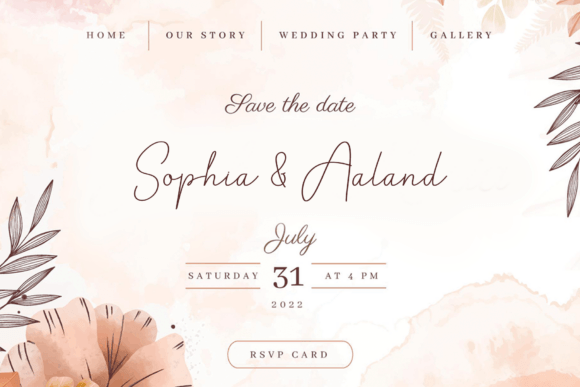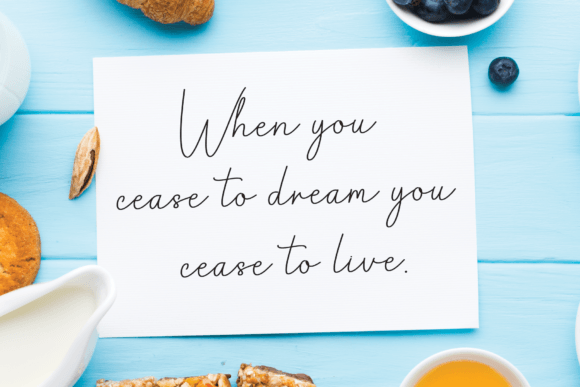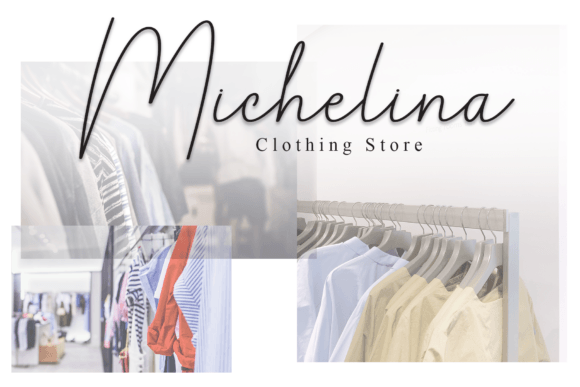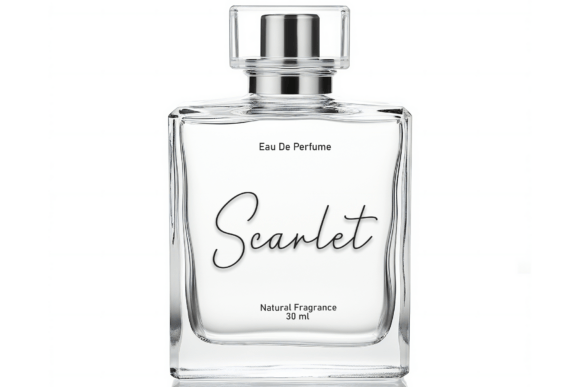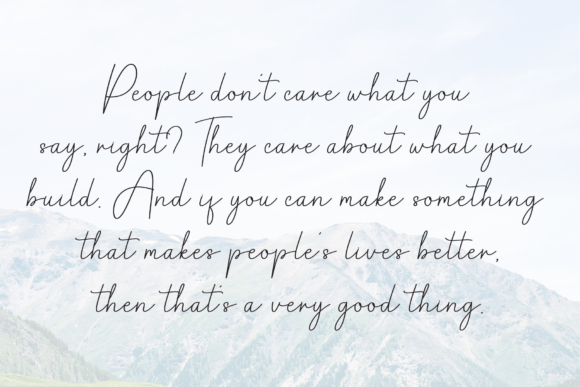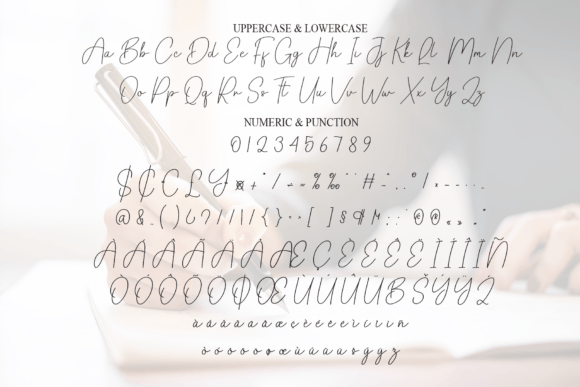
Bastian Signature Font: Elevate Your Designs with Elegant Handwriting
In the world of design, typography plays a crucial role in conveying the tone and personality of a brand or project. When it comes to adding a personal touch to your designs, a stylish handwritten font can make all the difference. Introducing Bastian Signature, a beautiful and elegant font that mimics natural, flowing handwriting. In this article, we’ll explore the features and benefits of Bastian Signature, and how it can elevate your designs to the next level.
What is Bastian Signature Font?
Bastian Signature is a stylish handwritten font that looks like natural, flowing handwriting. Its elegant and smooth letters make it perfect for adding a personal and creative touch to your designs. This font is designed to mimic the fluidity and uniqueness of handwritten text, making it ideal for a wide range of applications, from branding and advertising to crafting and scrapbooking.
Key Features of Bastian Signature Font
• Elegant and Smooth Letters: Bastian Signature features beautifully crafted letters that are smooth, flowing, and elegant. Each letter is designed to connect seamlessly with the next, creating a natural and fluid look.
• Natural Handwriting Style: This font is designed to mimic the imperfections and uniqueness of natural handwriting. The letters have a subtle variation in size, shape, and spacing, giving your designs a personal and human touch.
• Highly Versatile: Bastian Signature is a highly versatile font that can be used for a wide range of applications, from digital designs to print materials. It’s perfect for designers, crafters, and DIY enthusiasts who want to add a personal touch to their projects.
Benefits of Using Bastian Signature Font
So, why choose Bastian Signature for your designs? Here are just a few benefits of using this beautiful font:
• Adds a Personal Touch: Bastian Signature adds a personal and creative touch to your designs, making them stand out from the crowd.
• Enhances Brand Identity: This font can help you create a unique and consistent brand identity that reflects your personality and style.
• Increases Engagement: The elegant and smooth letters of Bastian Signature can help increase engagement and interaction with your audience, making your designs more memorable and impactful.
• Perfect for Crafting and Scrapbooking: Bastian Signature is a great choice for crafters and scrapbookers who want to add a personal touch to their projects. It’s perfect for journaling, titles, and other creative elements.
Tips for Using Bastian Signature Font
Here are a few tips for getting the most out of Bastian Signature:
• Use it for Headlines and Titles: Bastian Signature is perfect for headlines and titles, where you want to make a bold and elegant statement.
• Experiment with Colors and Textures: Try pairing Bastian Signature with different colors and textures to create a unique and eye-catching look.
• Mix it with Other Fonts: Bastian Signature can be paired with other fonts to create a contrasting and visually appealing look. Try pairing it with a sans-serif font for a modern and elegant look.
In conclusion, Bastian Signature is a beautiful and elegant handwritten font that’s perfect for adding a personal and creative touch to your designs. Its natural handwriting style, elegant letters, and high versatility make it a great choice for designers, crafters, and DIY enthusiasts. Whether you’re looking to enhance your brand identity, increase engagement, or simply add a personal touch to your projects, Bastian Signature is a great choice. So why not give it a try and see how it can elevate your designs to the next level?